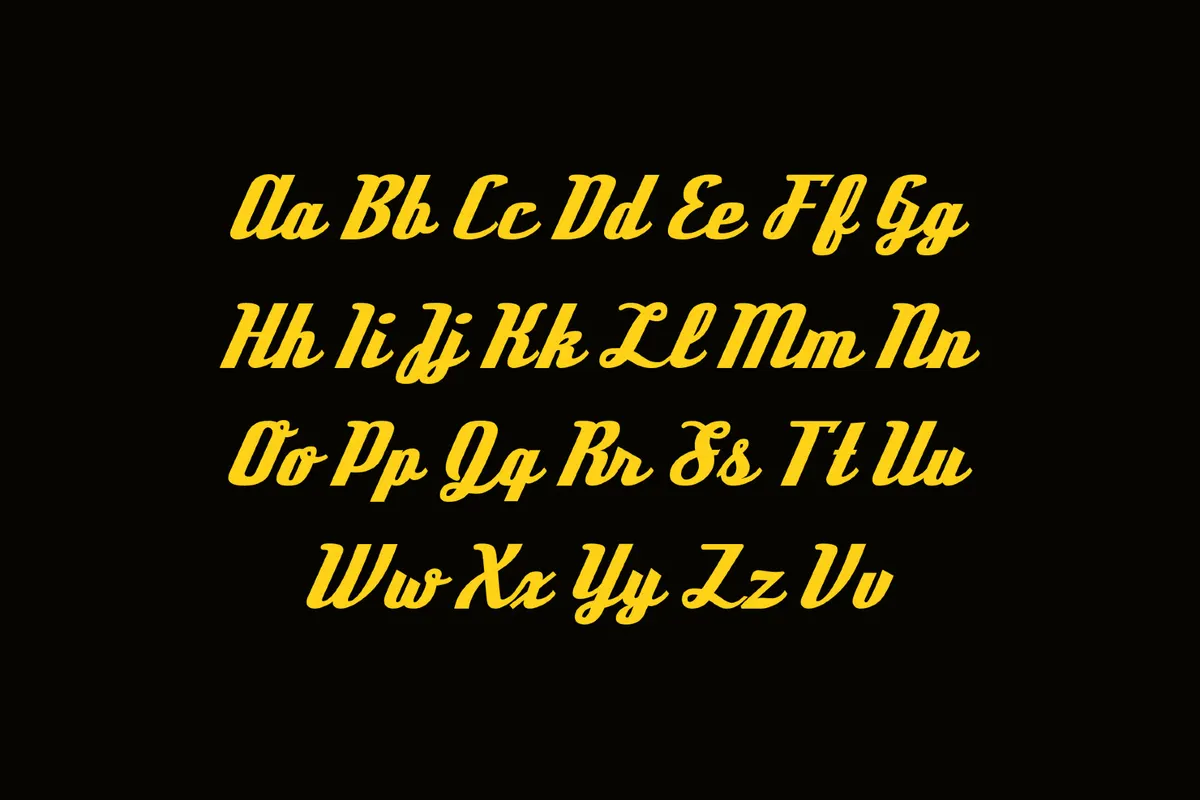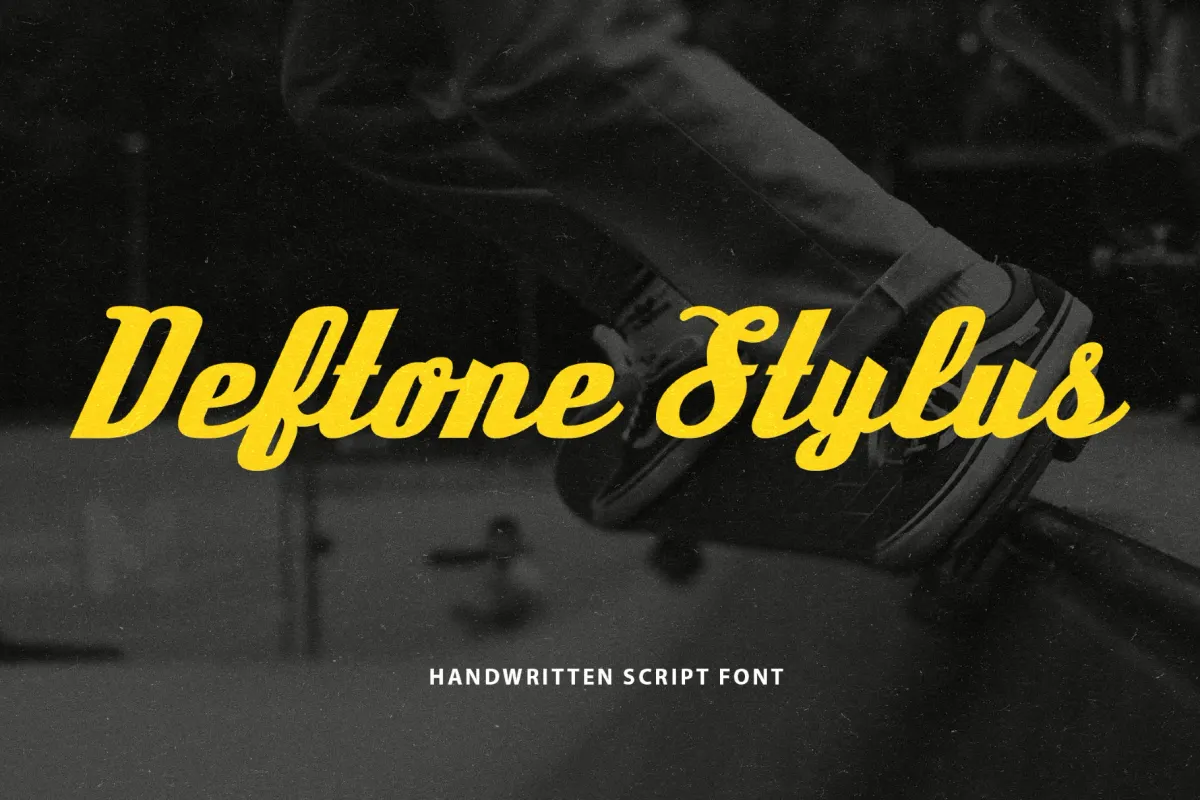
Deftone Stylus Font
Deftone Stylus
It is a restless, scratchy handwritten script with sharp turns and quick connections, recalling 1990s skate zines and scrawled alternative-rock liner notes. The font suits band merch, album and playlist covers, gig posters, streetwear branding, game title cards, social promo graphics, and punchy quote lockups.